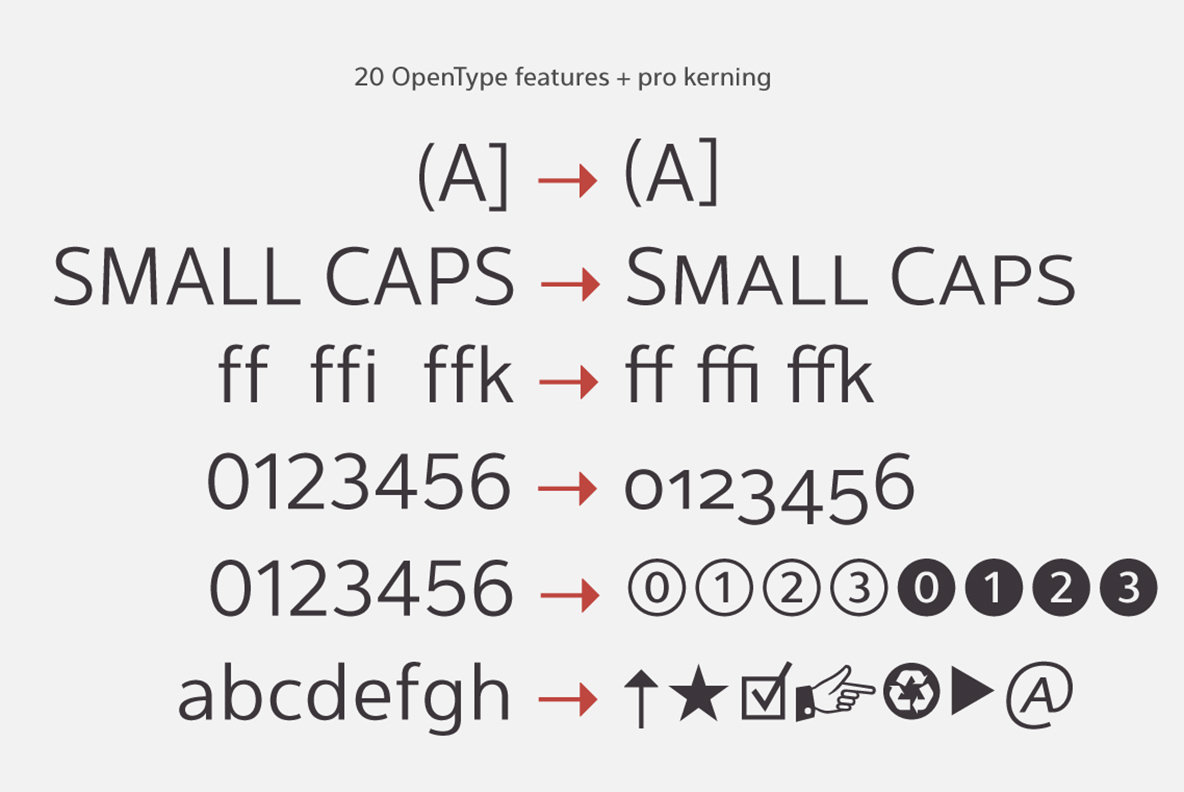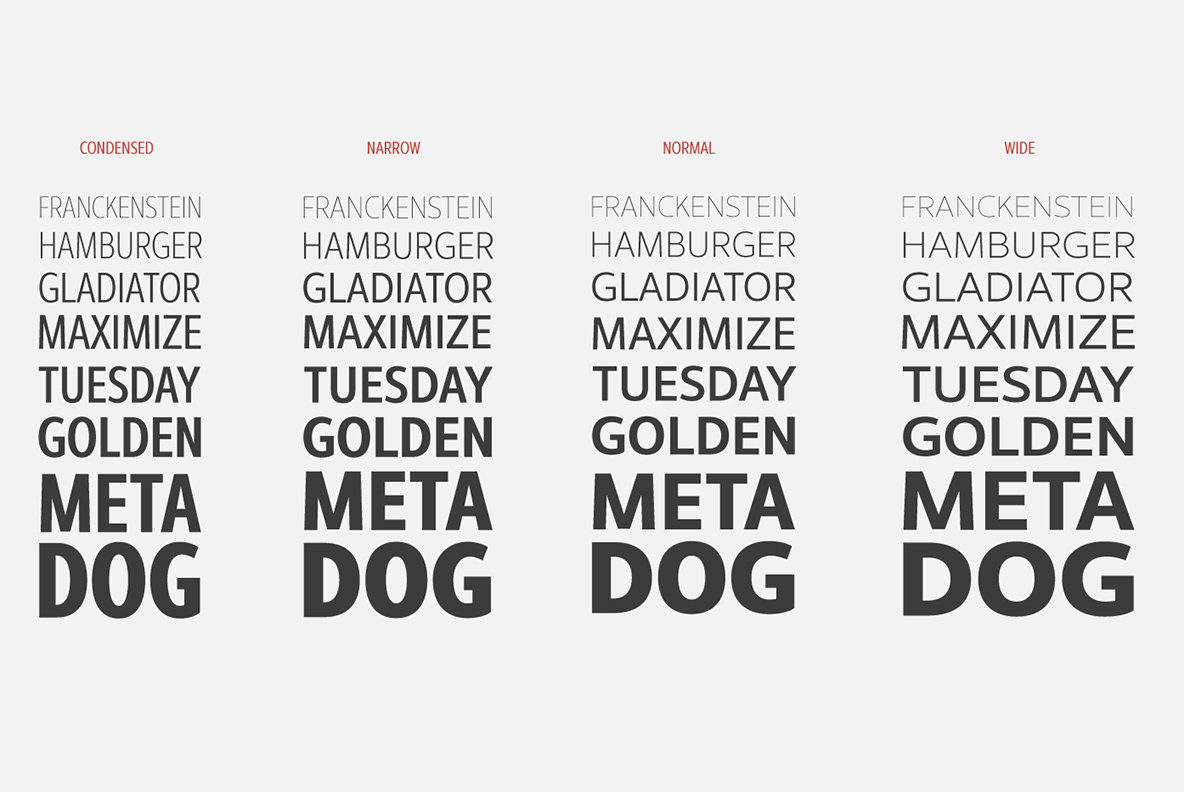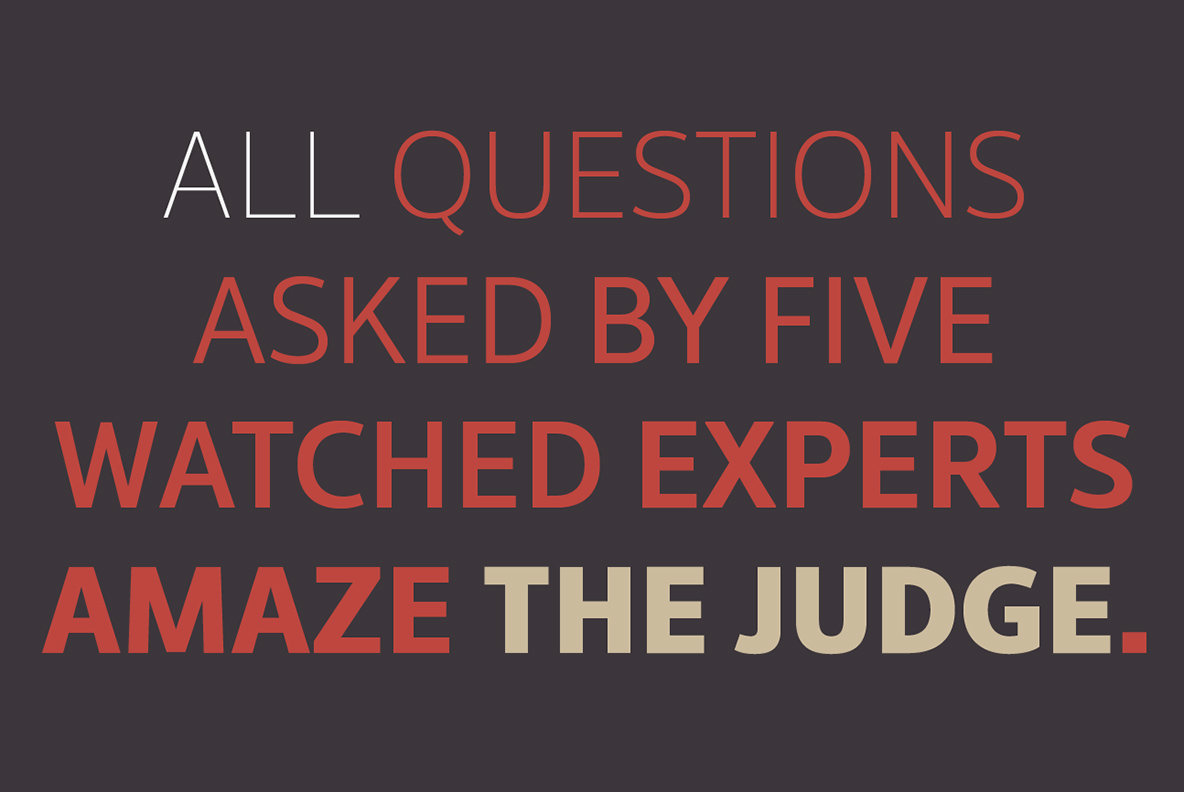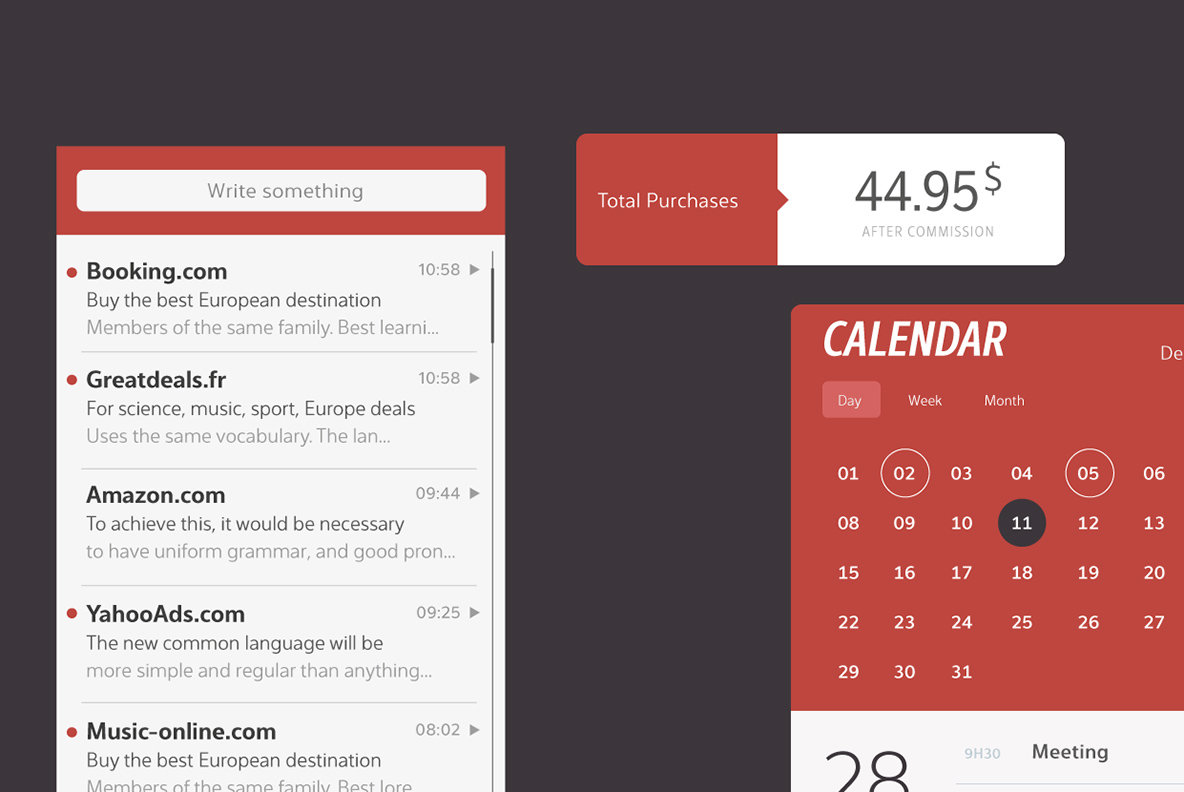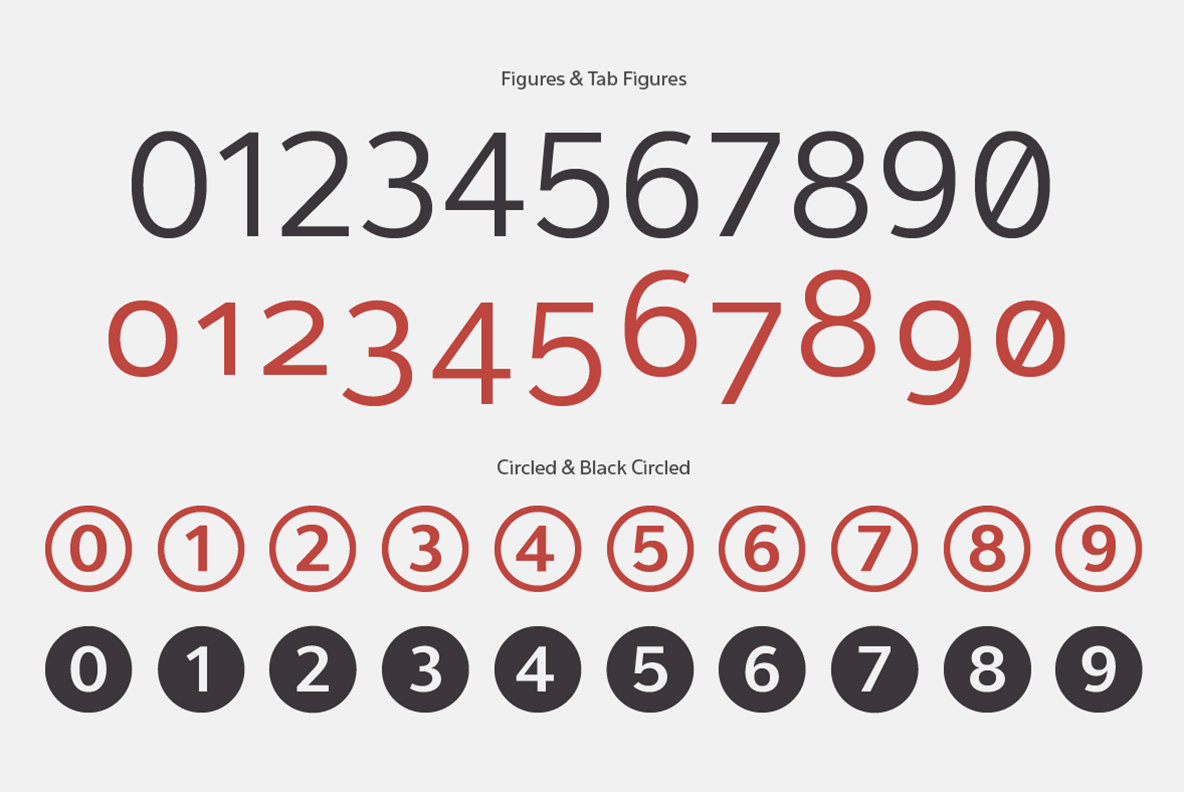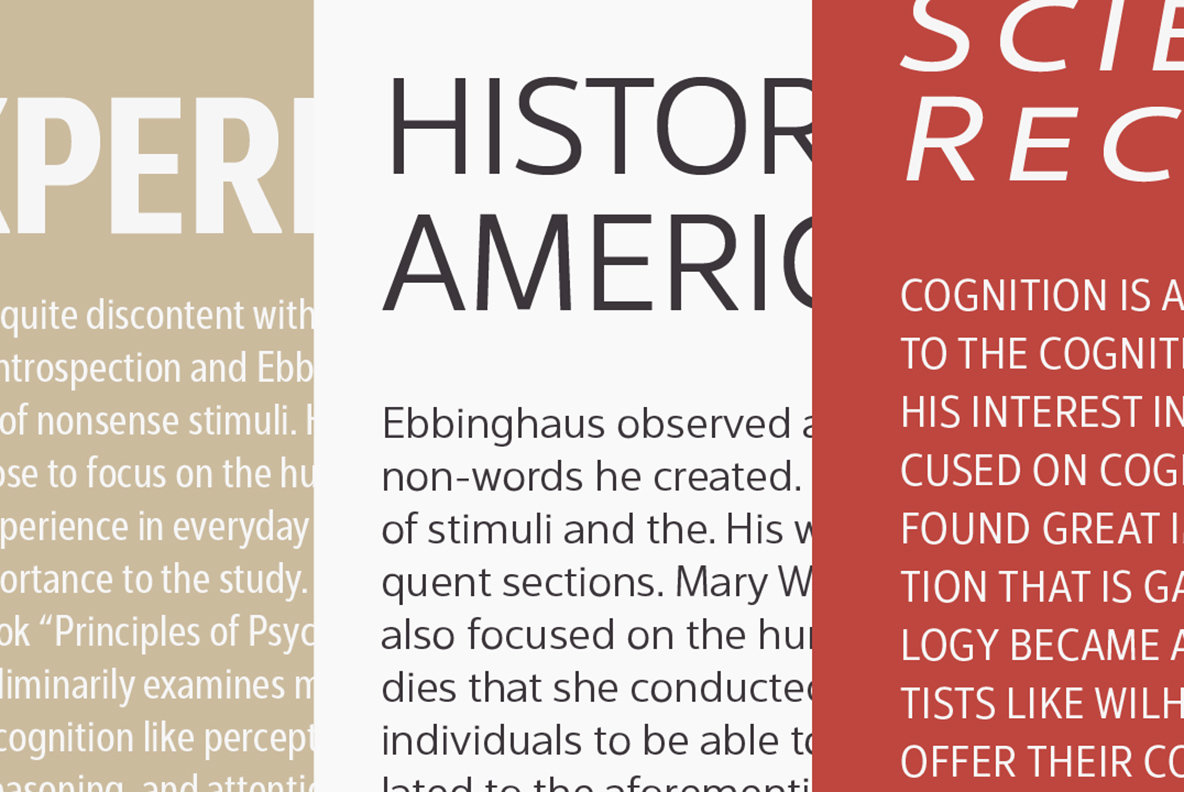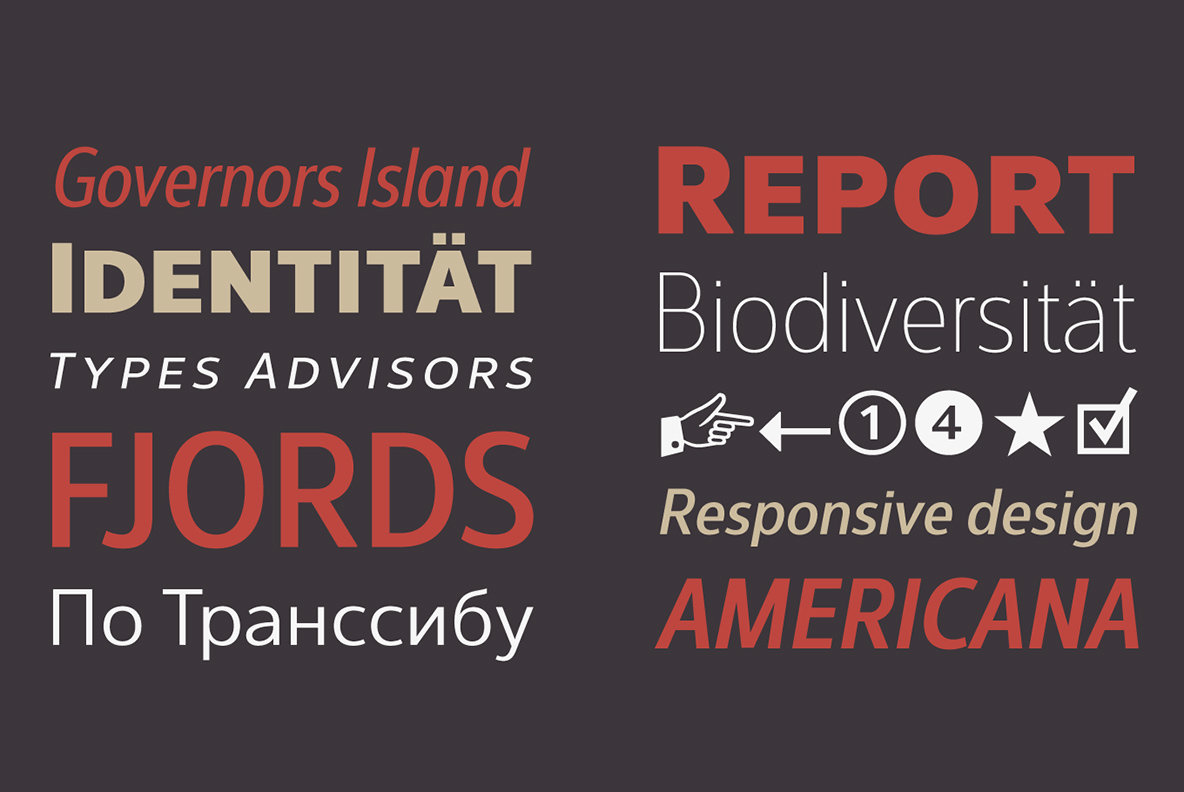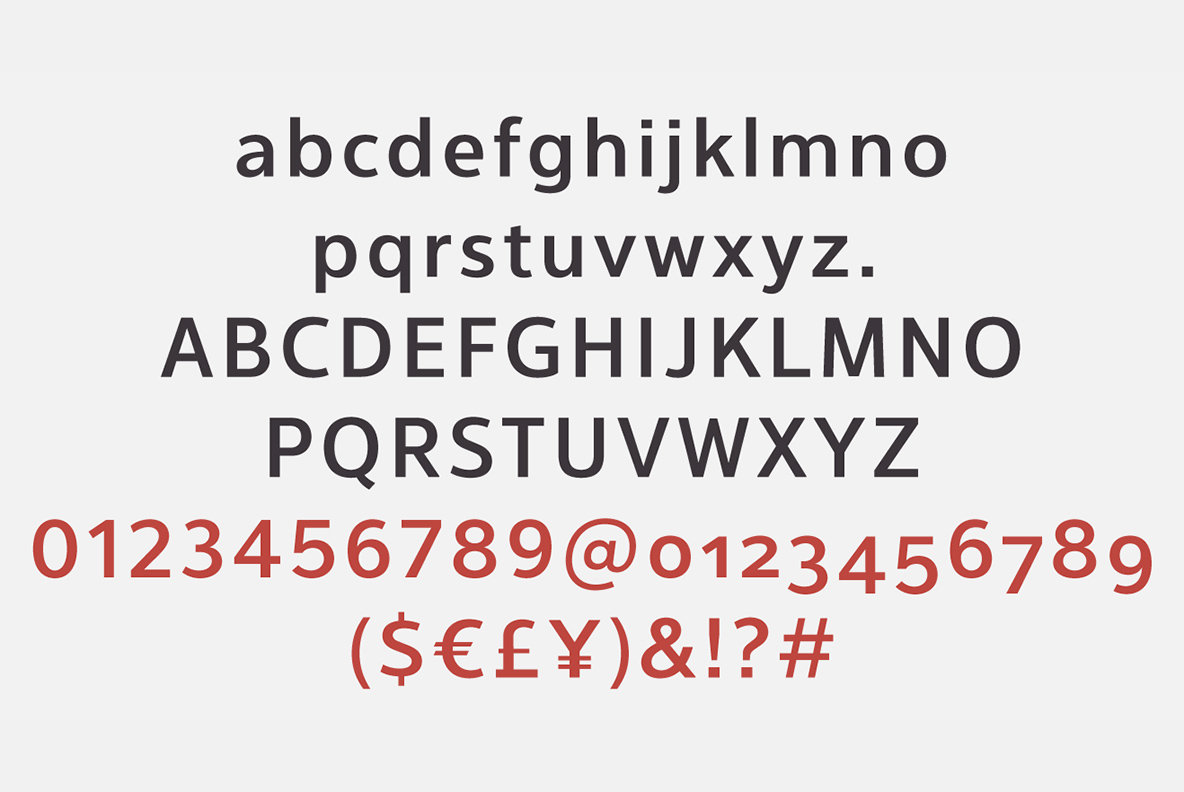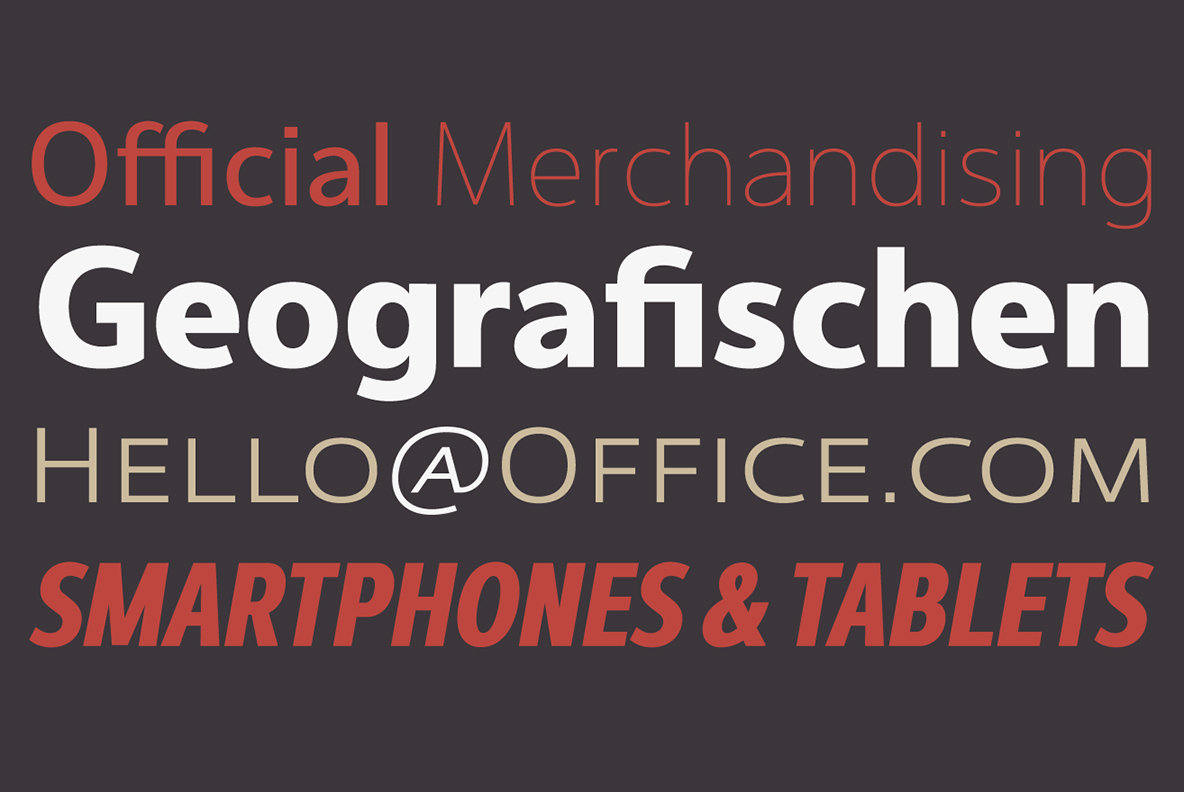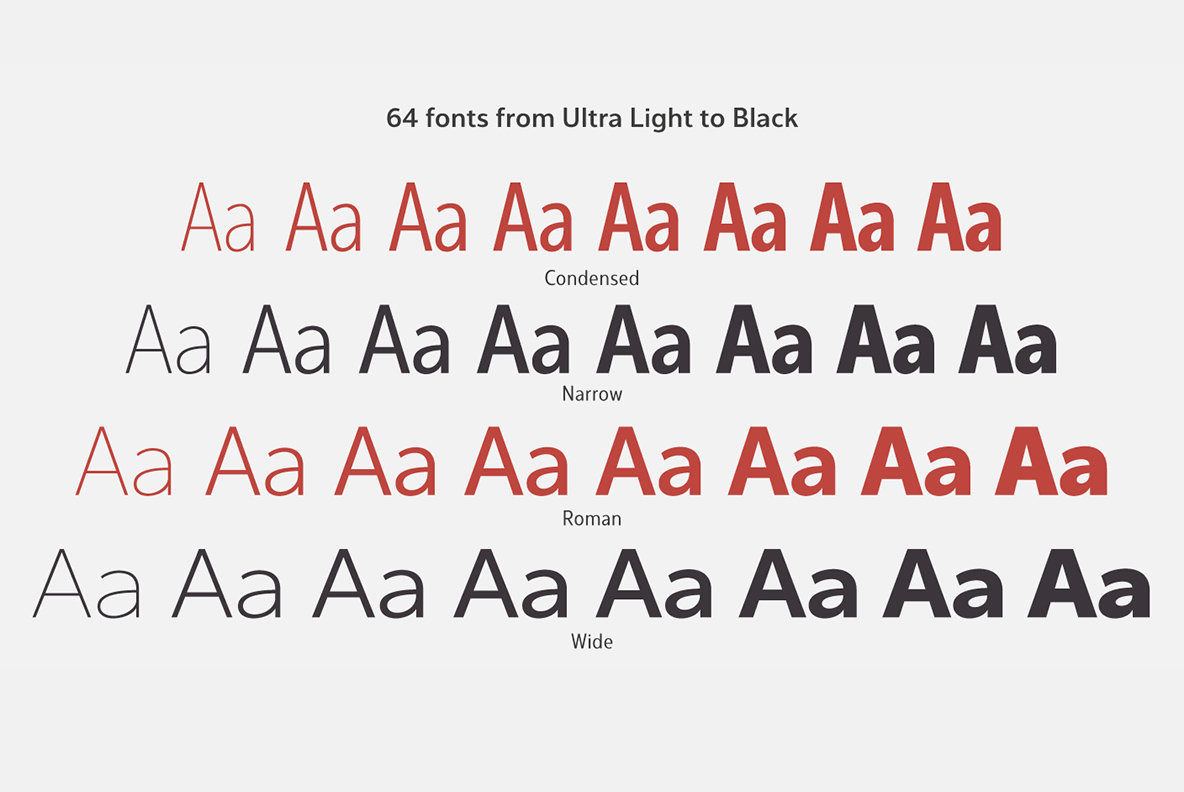
Interval Next Font
Interval Next is a modern sans serif font family that is the successor of the successful Interval Sans Pro. Designed by Olivier Gourvat, Interval Next typeface consists of 16 fonts in 8 weights — Ultra Light, Light, Book, Regular, Medium, SemiBold, Bold, Black— and has 4 styles.
Interval Next covers a large spectrum of languages such as West European, East European and the Cyrillic.